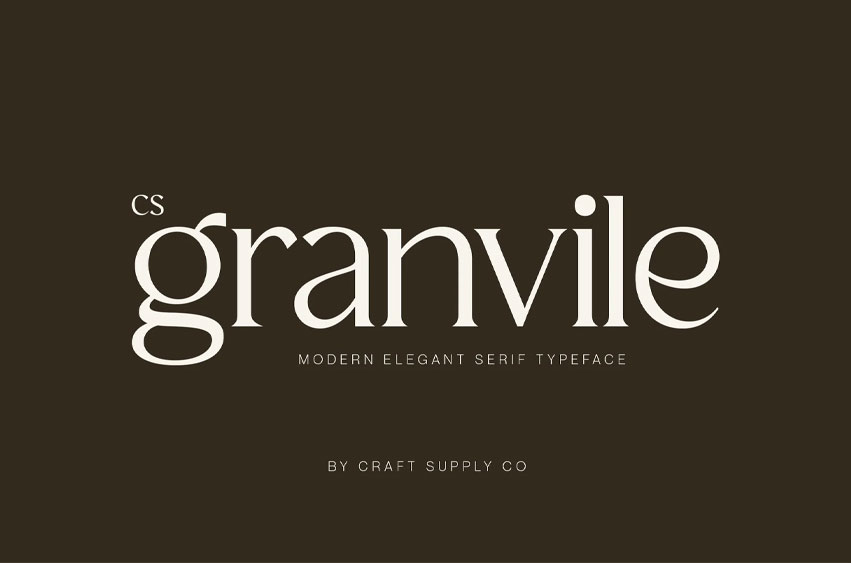
Granvile Font Elegant Serif with a Luxurious Character. This is an elegant serif font defined by refined curves and an elegant classic look. Each letterform is crafted with precision and grace, exuding sophistication and confidence. Designed to elevate visual storytelling, this font embodies the perfect harmony between traditional elegance and modern refinement.
Elegant Curves for a Distinguished Presence The smooth, balanced curves of this font create a luxurious aesthetic that feels both delicate and strong. Its refined proportions bring a sense of high-end design to any layout, allowing text to flow effortlessly while maintaining a commanding presence. This makes it perfect for projects that demand beauty, balance, and professionalism.
Ideal for Luxury and Editorial Design. From luxury branding to editorial layouts, this font delivers an air of exclusivity and grace. Its poised structure and refined contrast make it suitable for fashion magazines, packaging, and high-end branding where detail and style define the message.
A Serif That Defines Sophistication. This font stands as a statement of elegant taste. Combining classical influence with modern execution, it enhances any creative project with understated glamour. Whether used for logos, titles, or sophisticated print work, this font reflects craftsmanship, refinement, and lasting elegance.